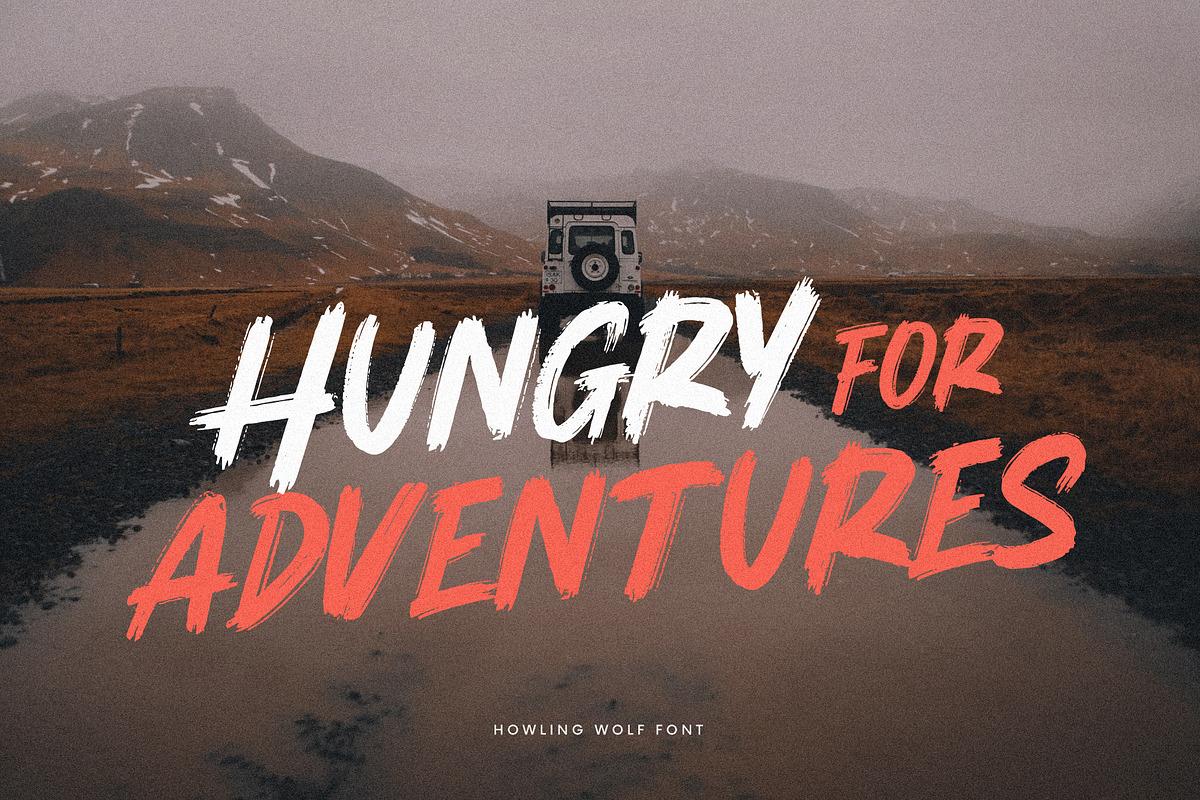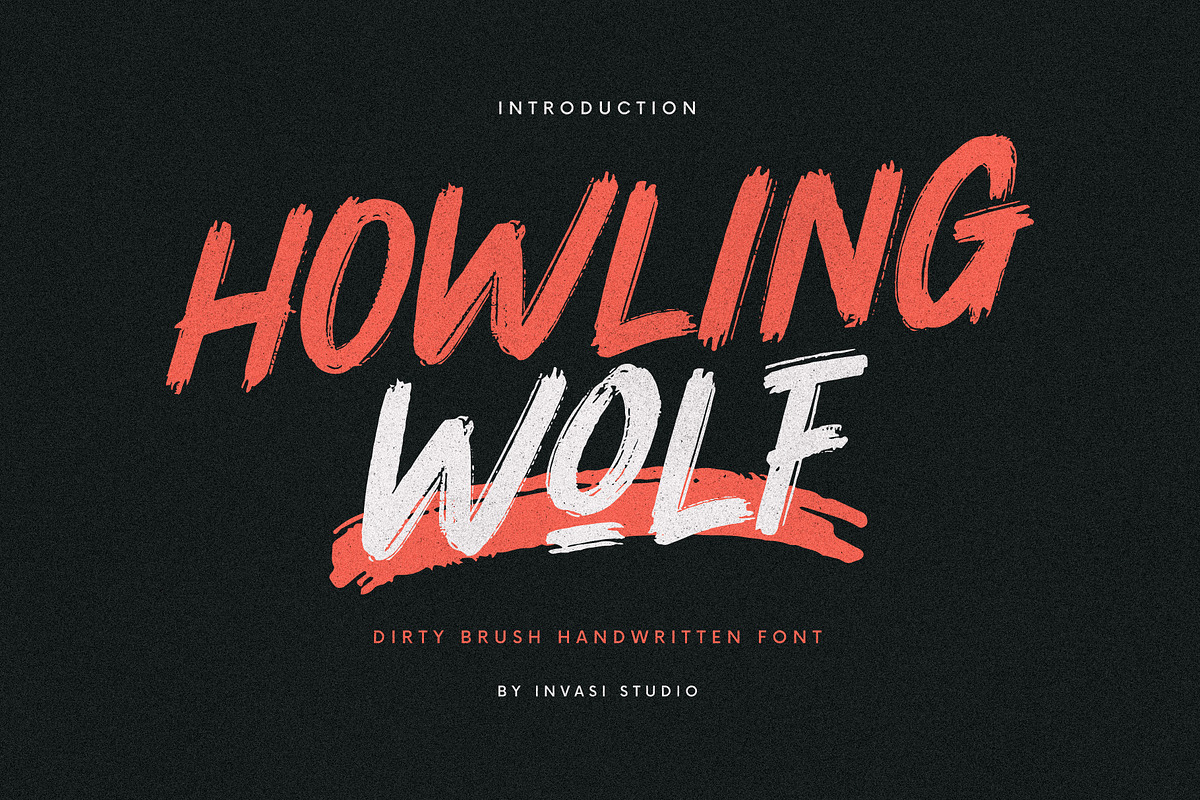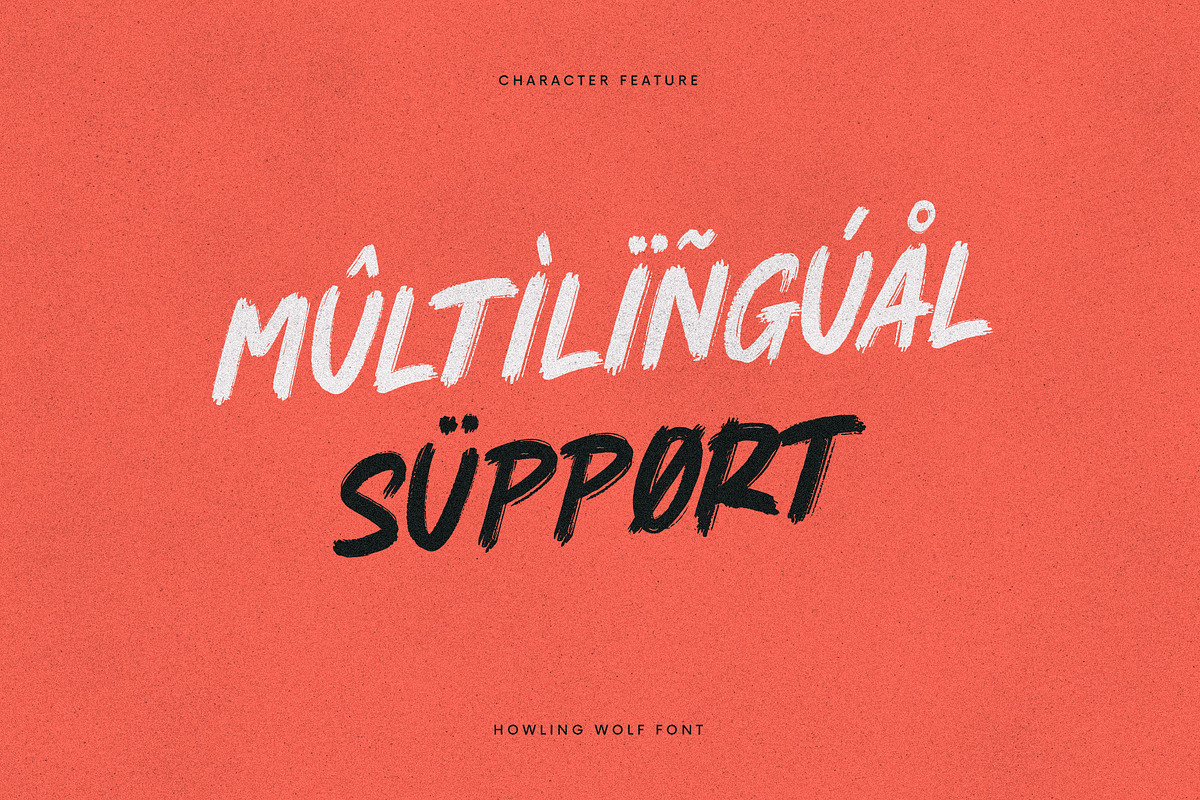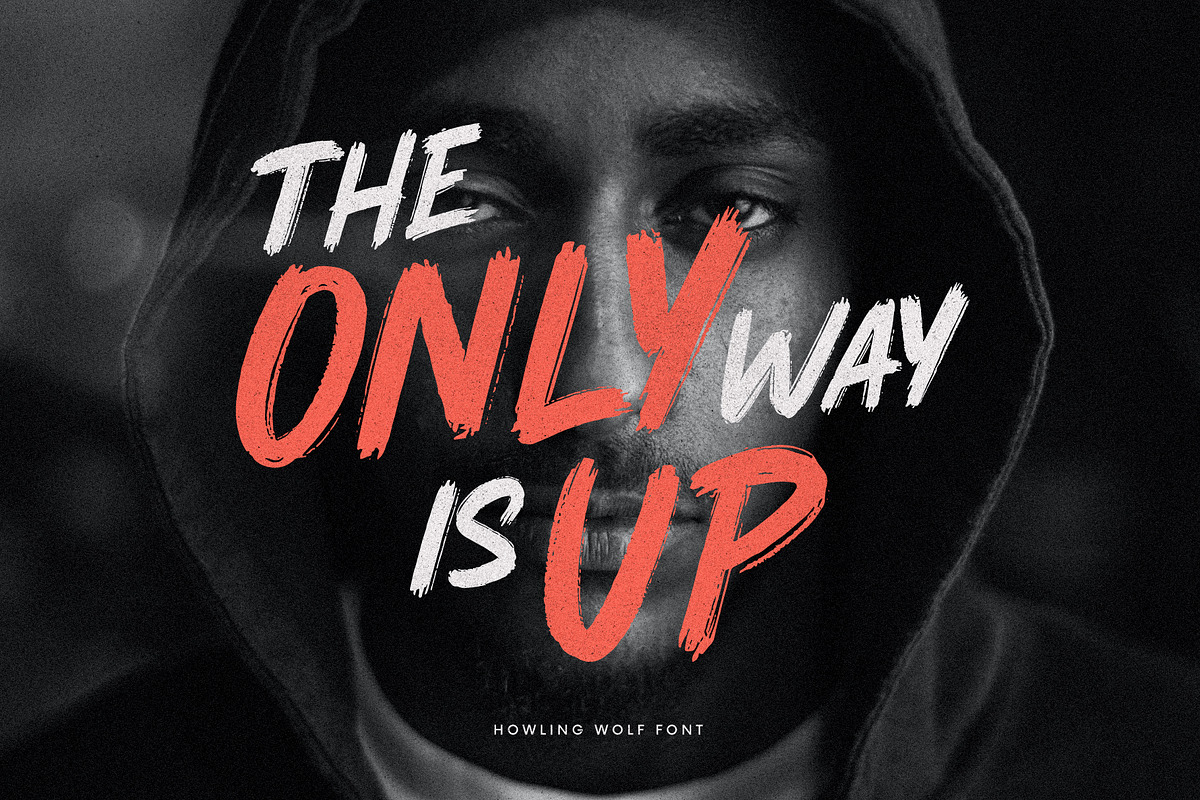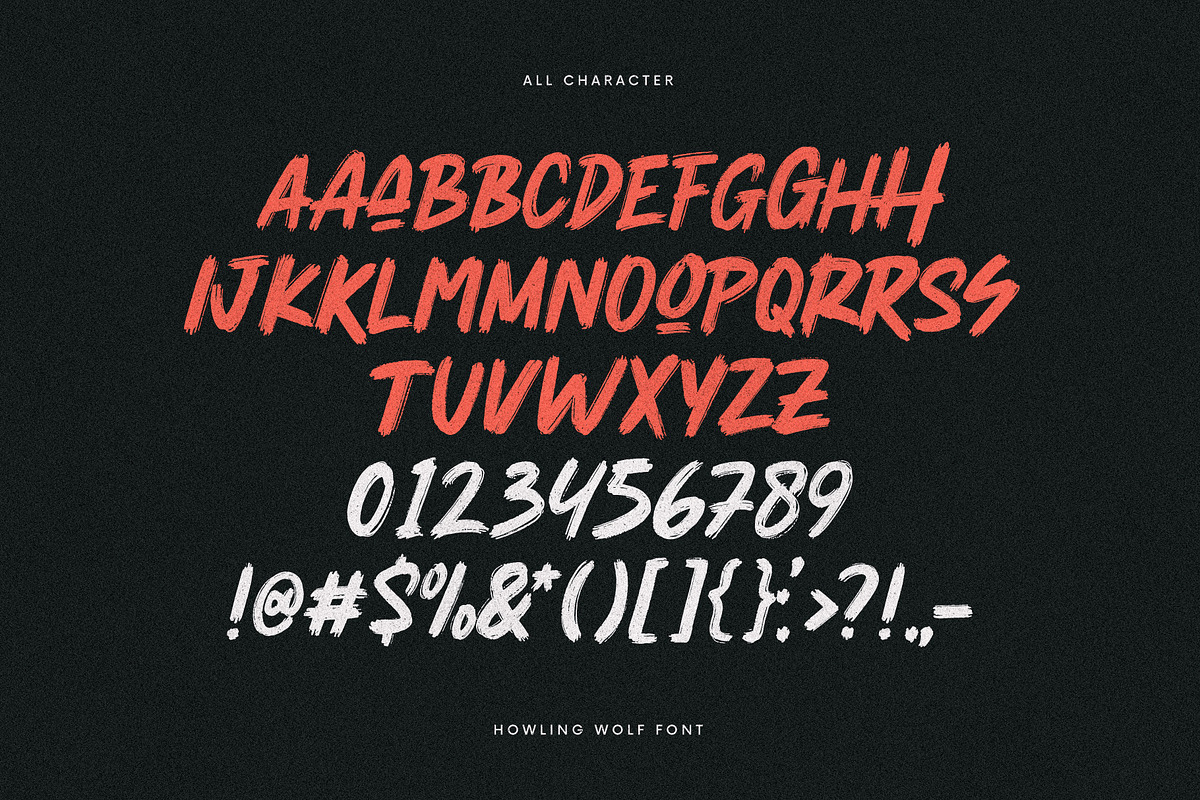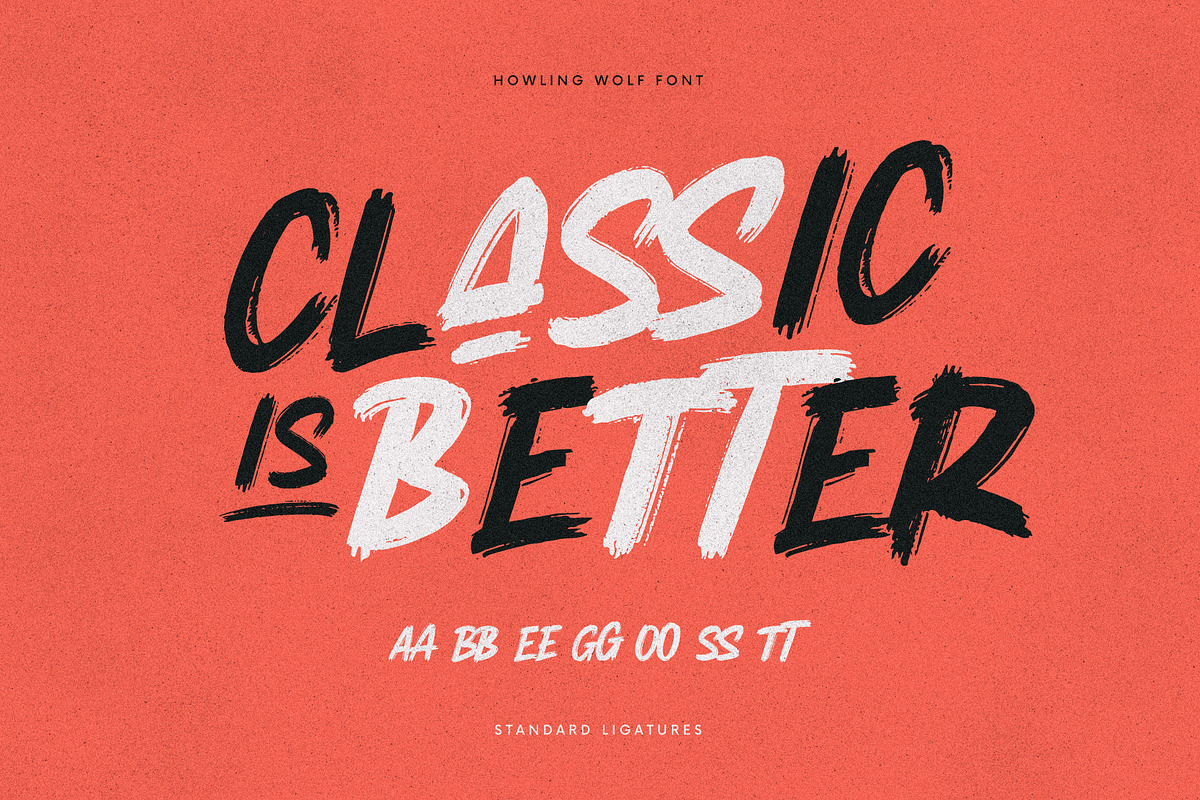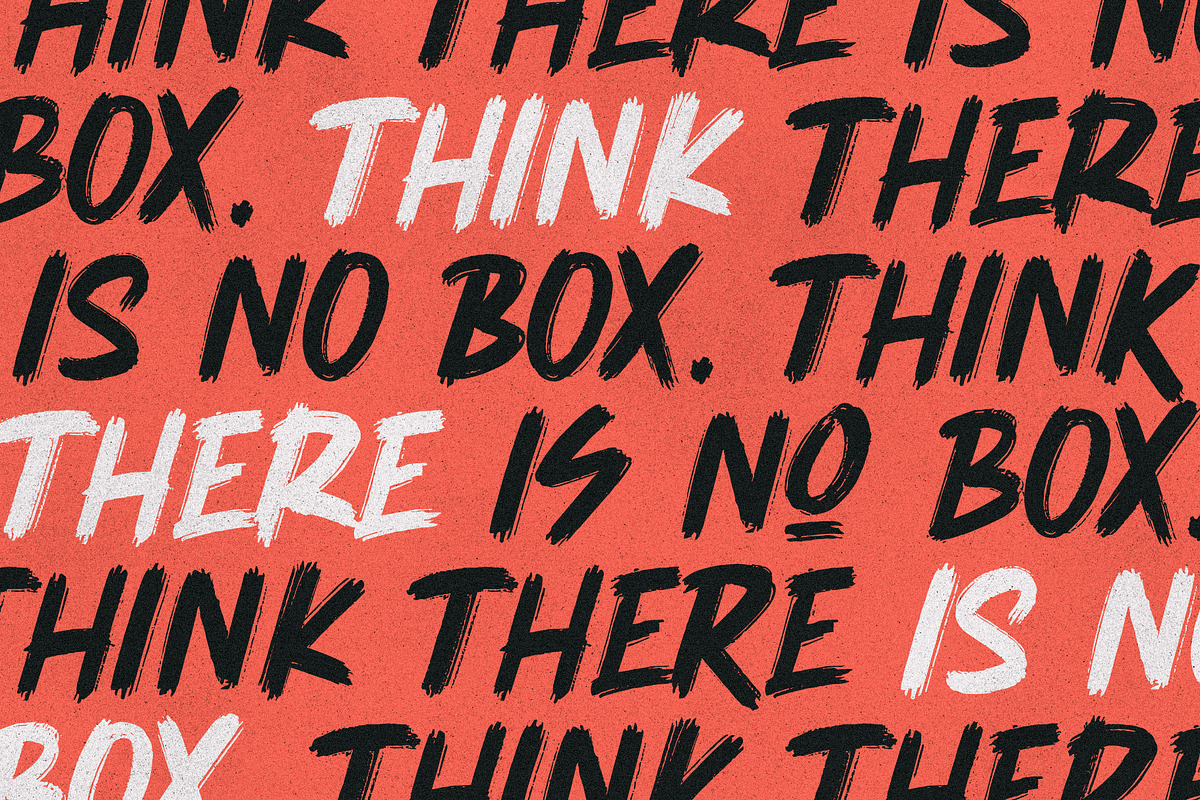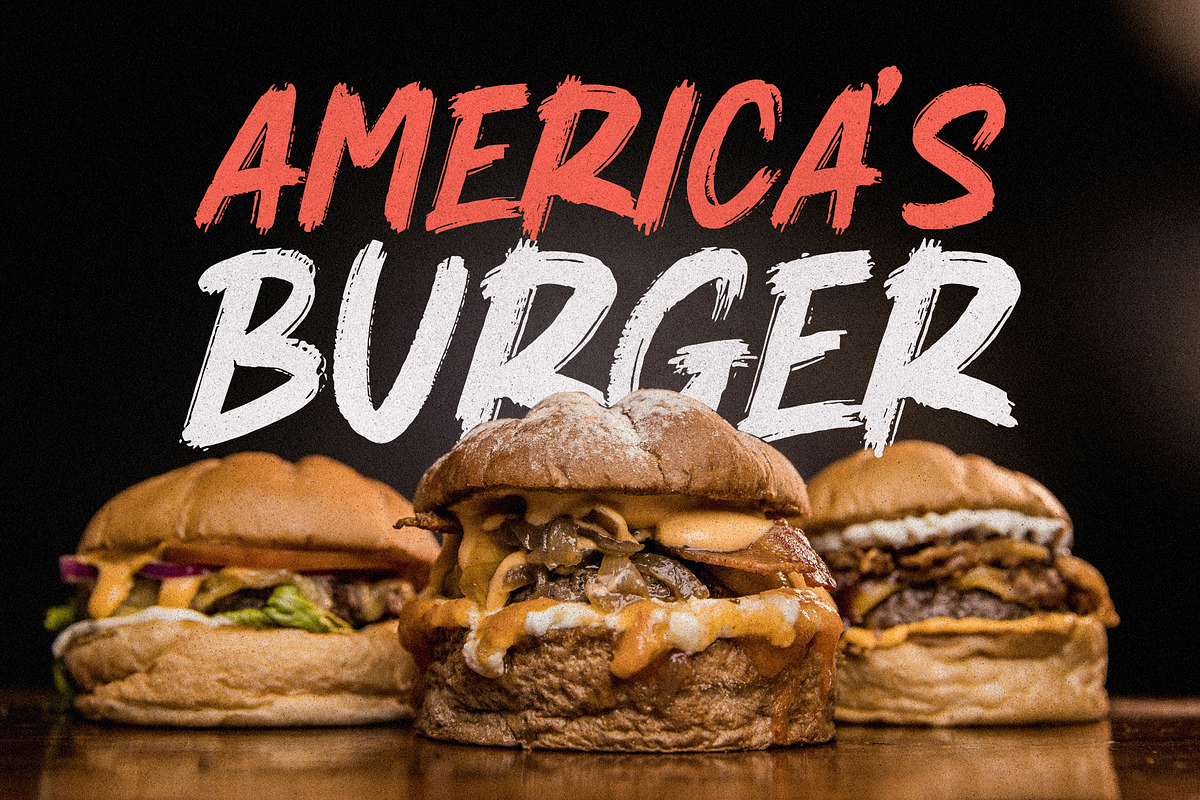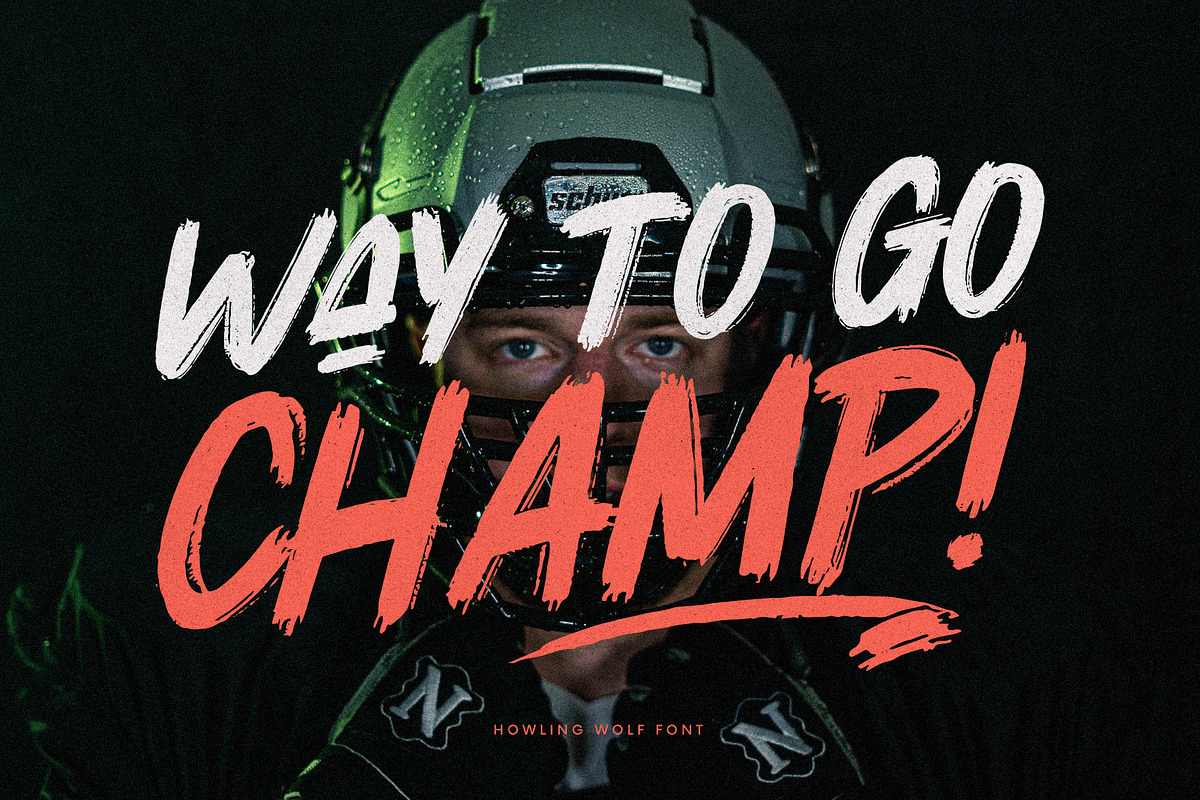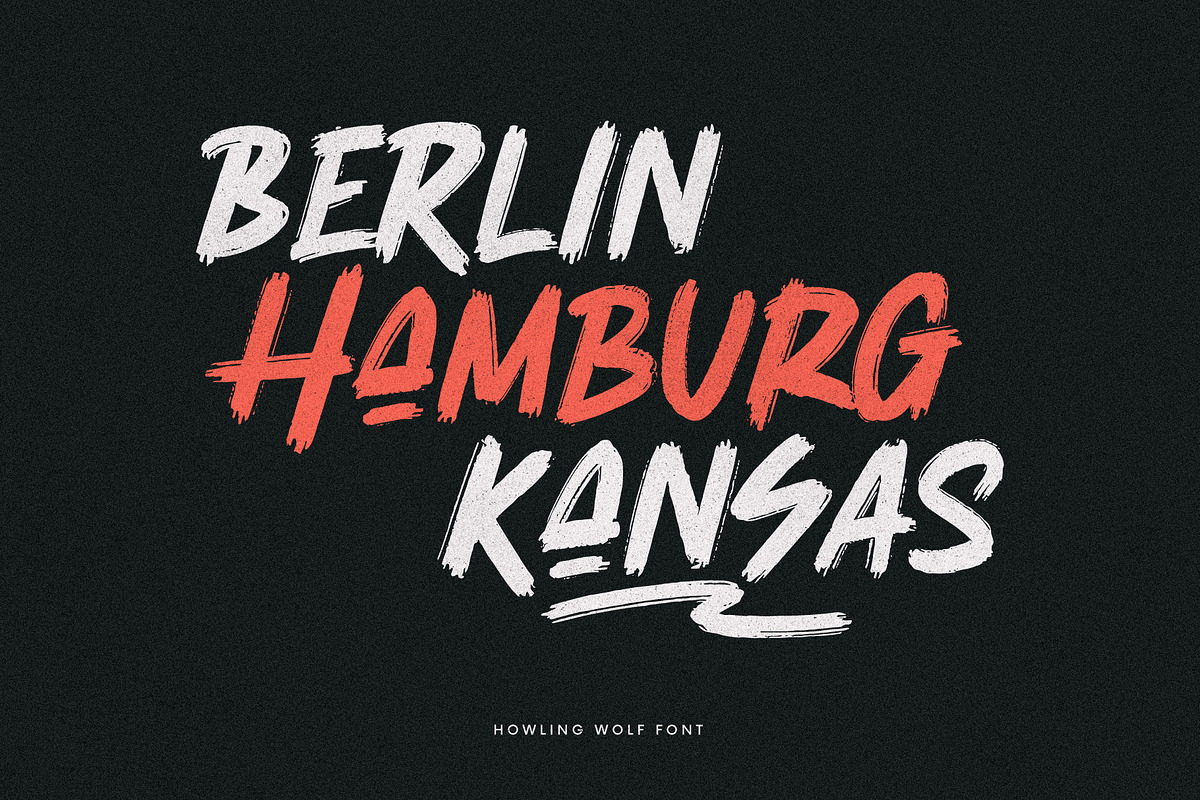
Howling Wolf - Dirty Brush
Howling Wolf is all caps aggressive dirty brush font special for your Display Design. With a bold aggressive style, it adds a bold touch to your projects and will inspire you to create something bold for your project. Besides that, this font is also equipped with Alternative Characters, Standard Ligatures, and multi-language support.
Howling Wolf is ideal for headings, flyers, greeting cards, product packaging, book covers, printed quotes, logotype, and album covers.